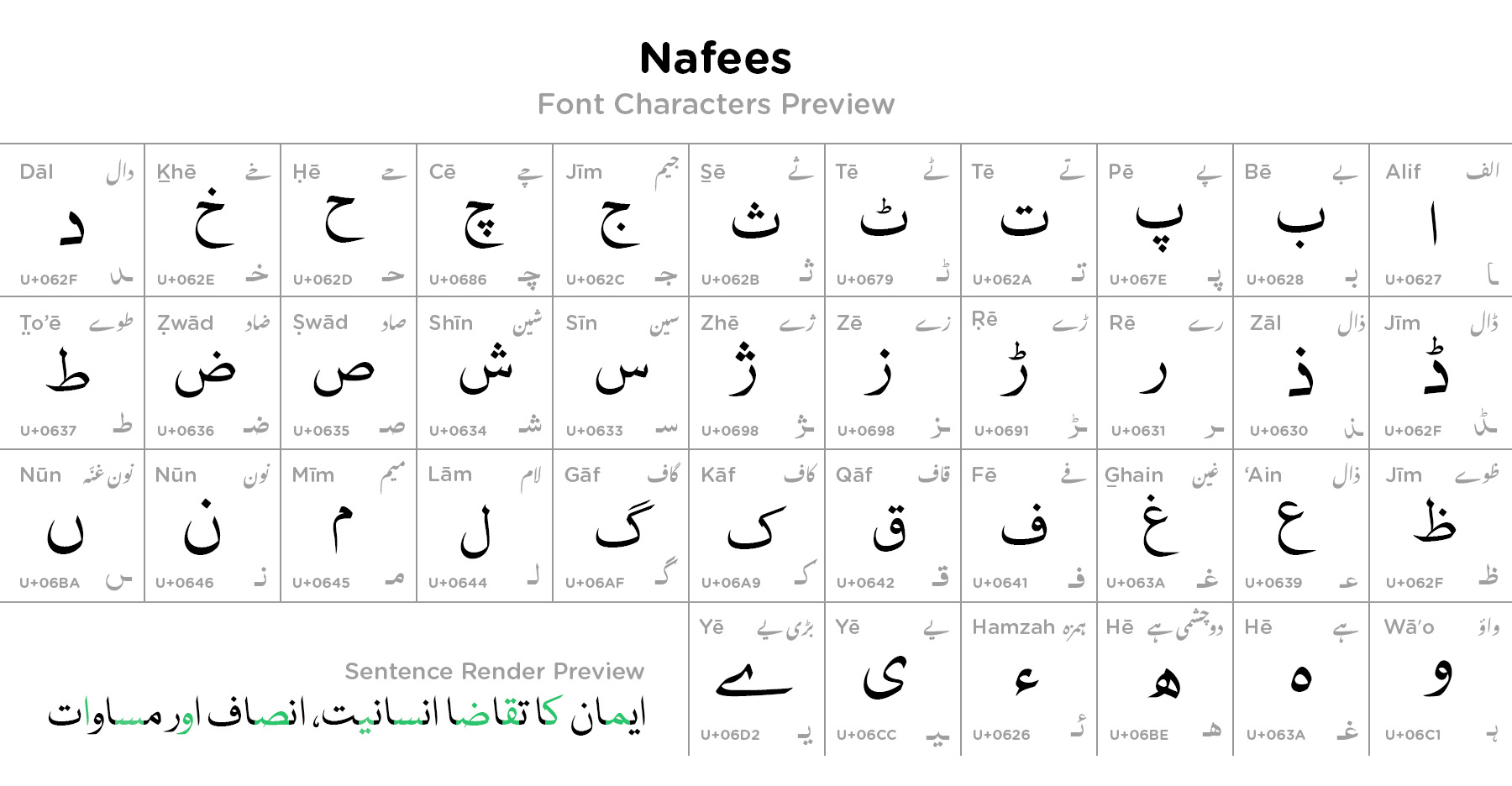
Nafees is a modern Urdu font designed by Mr. Jamil-ur-Rehman. It is known for its wide and thick appearance, which is reminiscent of Qalam writing. Released on June 2, 2017, it draws inspiration from traditional Naskh calligraphy with modern influences, offering a balance between simplicity and clarity. With 142 characters and an extensive glyph count of 1001, the font caters to various design needs across languages such as Urdu, Arabic, Latin, Persian, and more. Its high legibility, even at smaller sizes, makes it suitable for long text passages where readability is crucial.
Nafees’s font style is characterized by its thick and dynamic strokes, creating an impactful and changing appearance. Despite its thickness, the font maintains a neat look with straight vertical characters and sharp pointy edges, complemented by soft corners for a balanced aesthetic. Due to its formal and wide appearance, this font is perfect for branding, advertising, logos, book covers, posters, and newspaper headlines. Its constant spacing and formal look enhance its versatility across various design applications, providing a clean and professional appearance for any project.